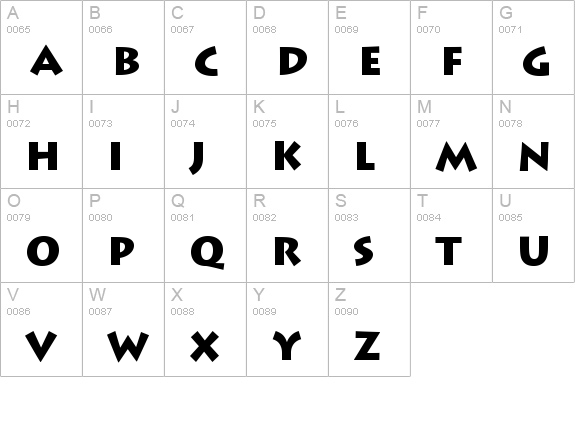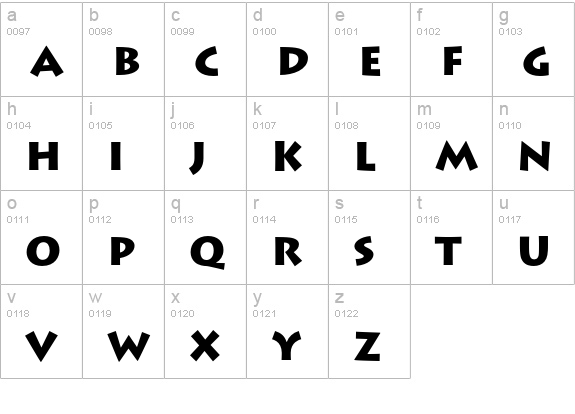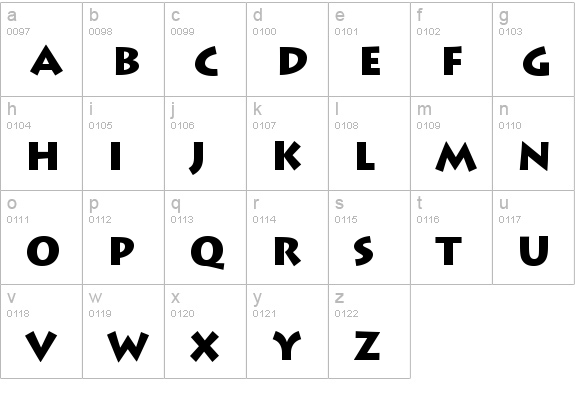
Lithos Black is a maximum-weight, dramatic variant in the Lithos typeface family \xE2\x80\x94 well suited to maximum-impact headlines, posters, and packaging.
Lithos Black is a bold and impactful font that exudes strength and modernity. Its sharp edges and clean lines make it perfect for a wide range of design projects, from branding to headlines. The sleek and sophisticated appearance of Lithos Black commands attention and leaves a lasting impression on viewers. What makes Lithos Black even more appealing is that it is available for free download at FontsMarket.com. This means that you can easily access this versatile font and use it in your creative endeavors without any cost. Whether you are designing a poster, logo, website, or any other visual content, Lithos Black is sure to elevate your work with its striking aesthetic and versatility. Download Lithos Black today and unleash your creativity with this stylish and impactful font.